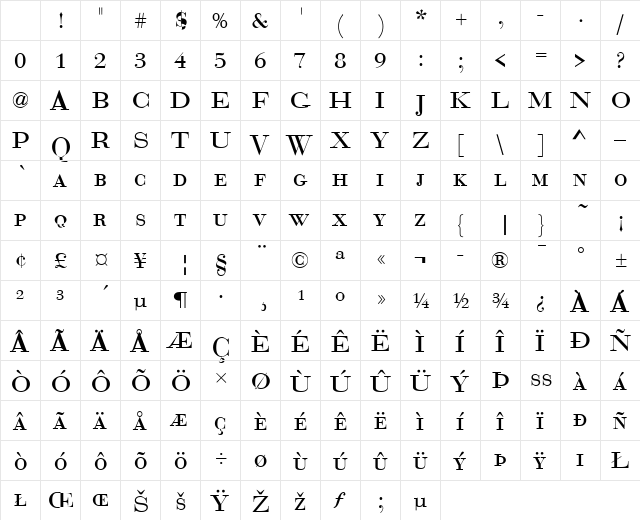
Complete Bauer Bodoni DC D Regular glyph index. Displaying only characters natively supported by Bauer Bodoni DC D Regular font.
Bauer Bodoni DC D is a composed and adaptable typeface that performs quietly and consistently across a wide range of design contexts.